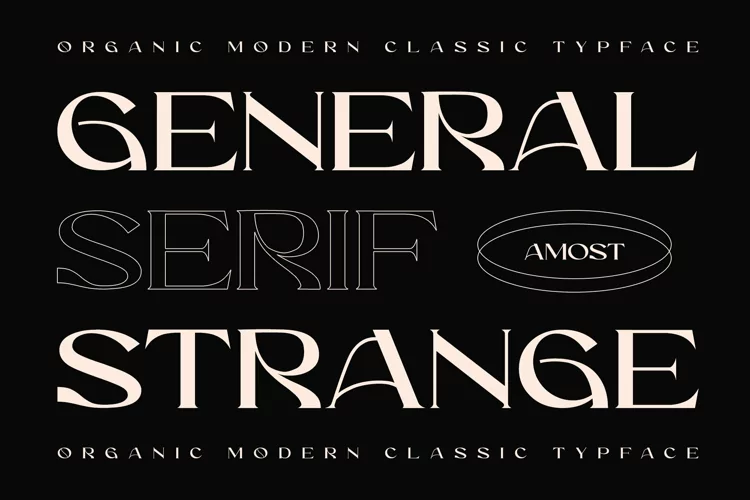
Centers George - Unique Font
Centers George Font is serif modern and classic typeface that has own unique style & modern look. Every single letters have been carefully crafted to make your text looks unique. This typeface is perfect for an elegant & luxury logo, book or movie title design, fashion brand, magazine, clothes, lettering, quotes, and so much more.
To make it look more unique, here we prepared some ligatures:AB AD AF AH AJ AM AP AR AS CA CE CC CH CO DC DG DO EA EB EC EG EH EO EP ER ET FA FB FH FP FR FT FS GB GE GF GH HA HB HD HE HF SS HH HK HP HR KA KC KG KO KM KS LA LC LG LM LO LU MB MD ME MF MH MK MM MP MR OC OG OO OR QA RA RC RE RG RO RS
Include Fancy Style on Every Uppercase and Some Lowercase